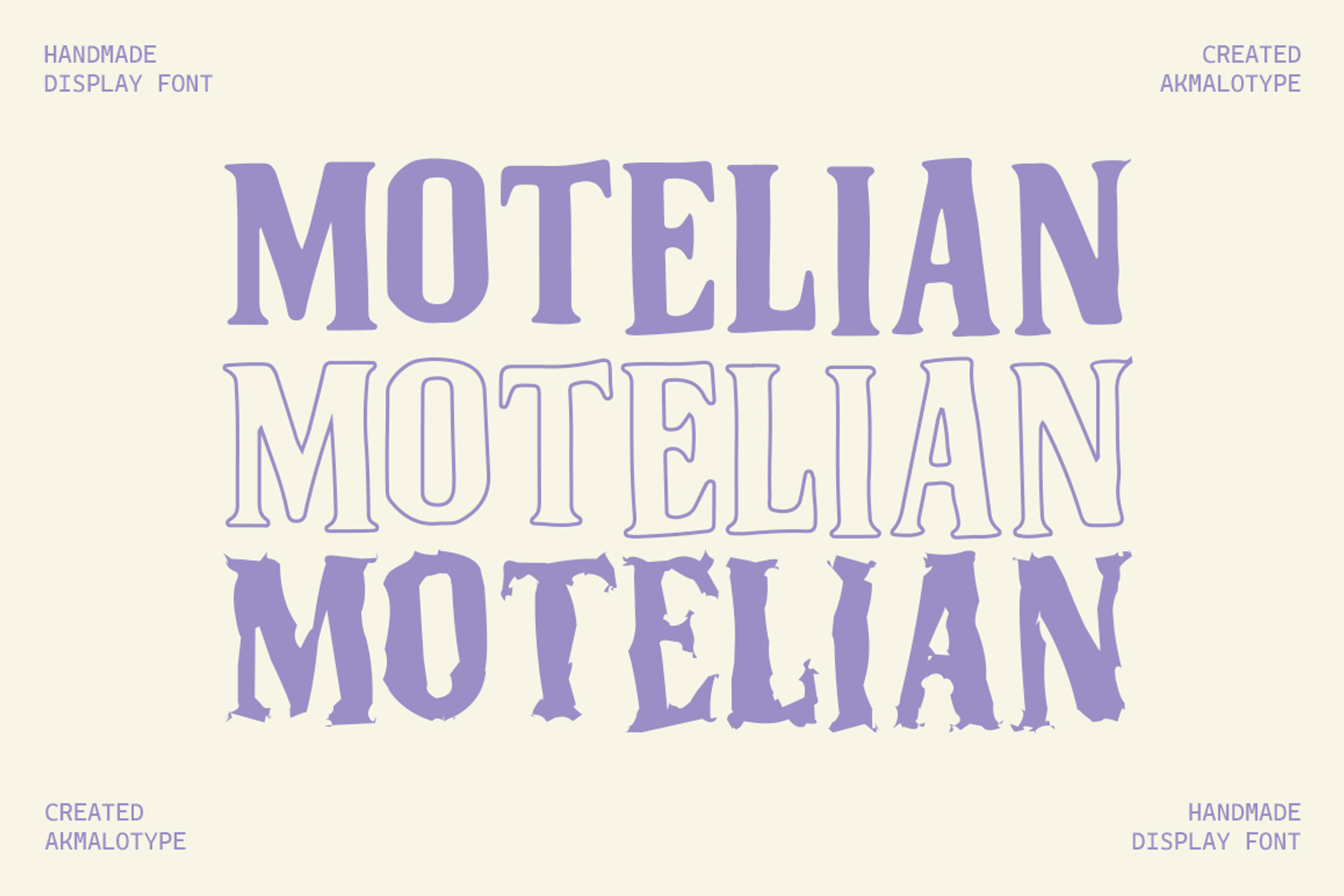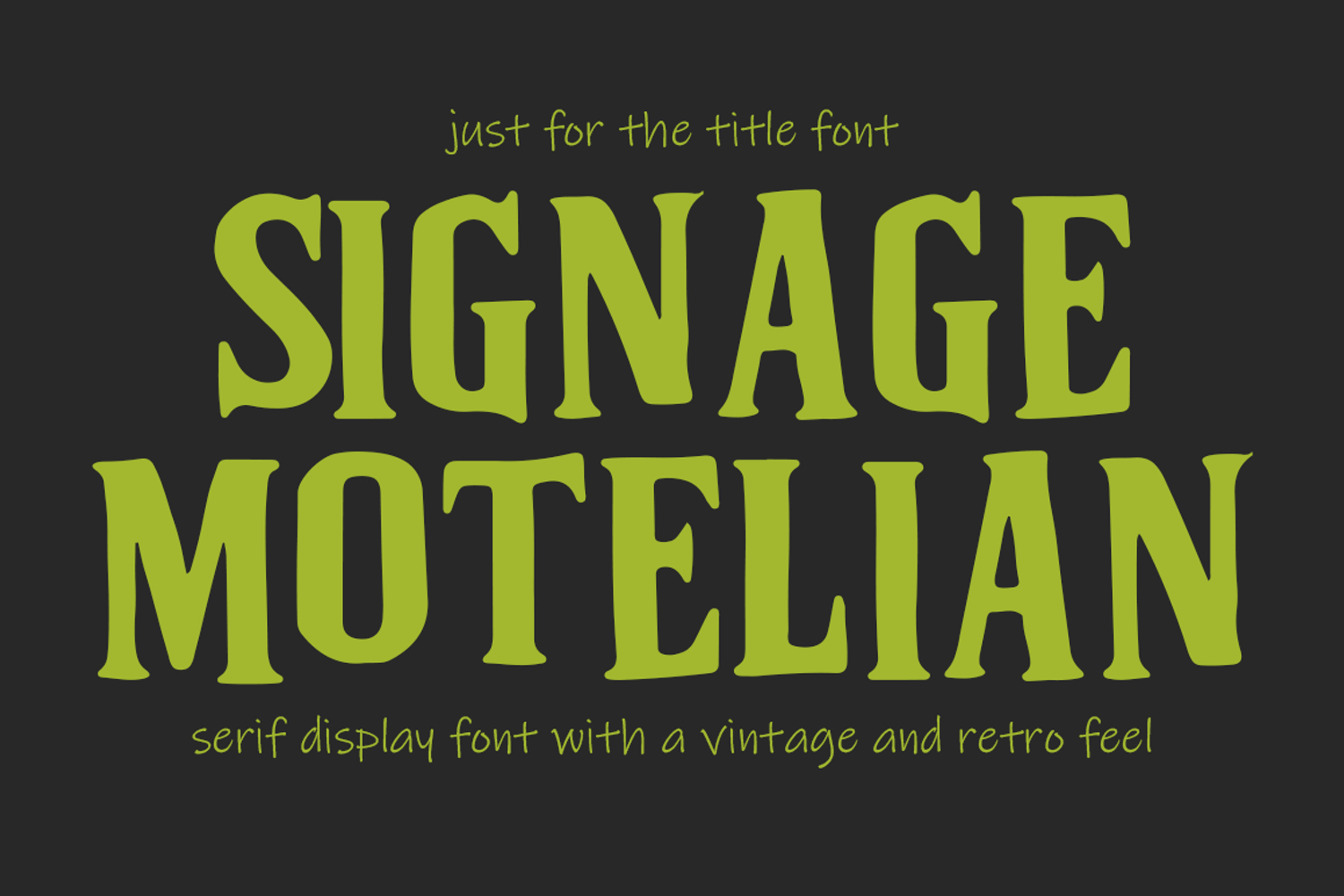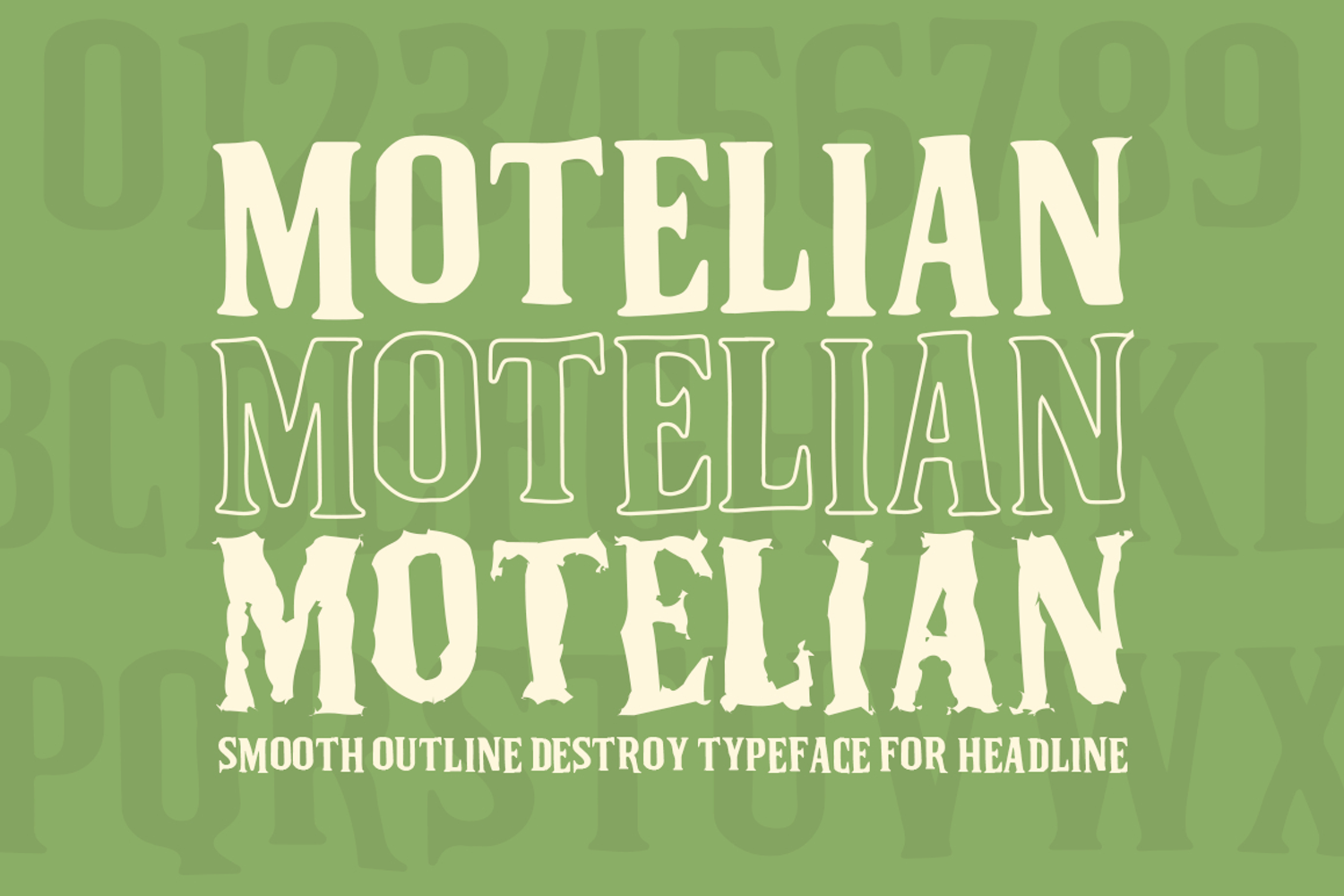
Motelian Font - Display Serif
Motelian
Motelian Outline
Motelian Destroy
MOTELIAN is a bold serif display font with a vintage and retro feel. Its soft curves and classic shapes give it a timeless look, making it perfect for branding, posters, signage, and designs inspired by old-school or nostalgic themes.